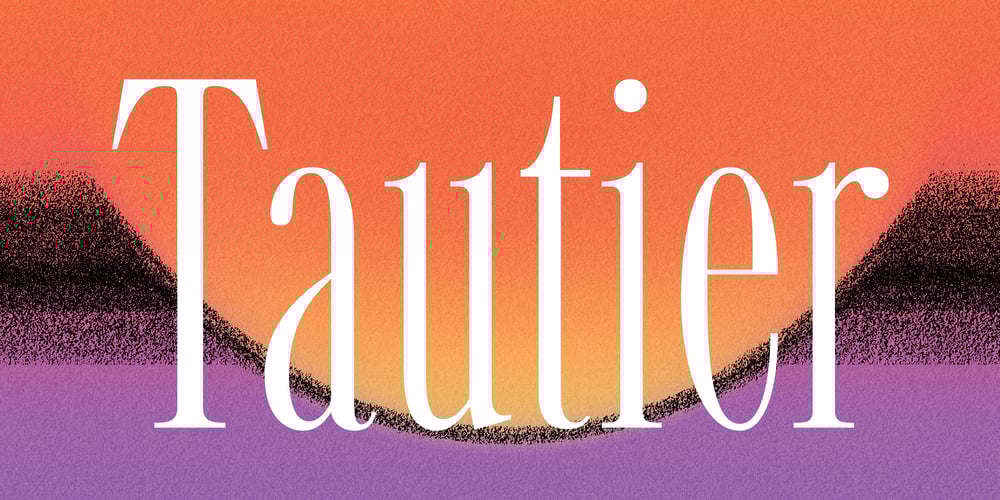
Tautier Font Family was designed by Sihan Wu and published by Sihan Wu. Tautier contains 1 styles and family package options. Tautier is a display font based on the specimen of Enge Mediaeval-Antigua, published in 1900 from the Bauer Type Foundry. It is intentionally redrawn to keep its overall narrow proportions. Based on the existing basic alphabets, Tautier is redrawn to appear more classical and friendly, as you can notice in the rounded corners around the beaks, as well as the lachrymal terminals in lowercases.Tautier is a display typeface suitable for large applications, for example, headlines for editorial design, branding, webpages, and environmental design. It currently comes as a single-styled typeface disposed to extend with an italic version.